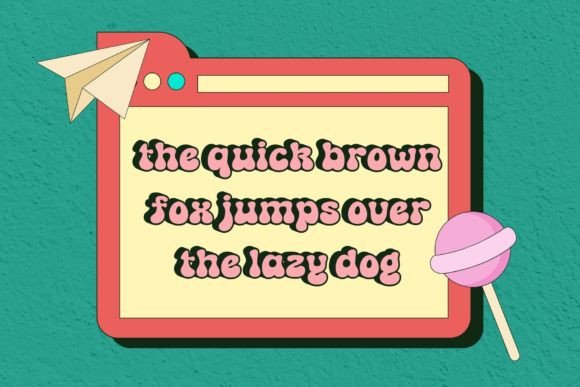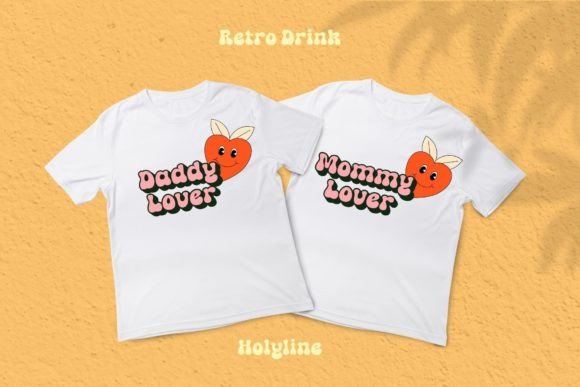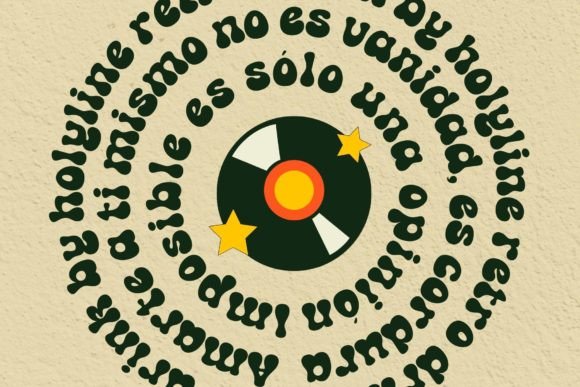
Introduction to Retro Drink Font
Retro Drink is inspired by 80s character and come with modern, groovy, playful, and bold characters.
This font comes in 4 styles Which consists of Regular, Outline, ShadowUp, and ShadowDown.
Key Features of Retro Drink Font